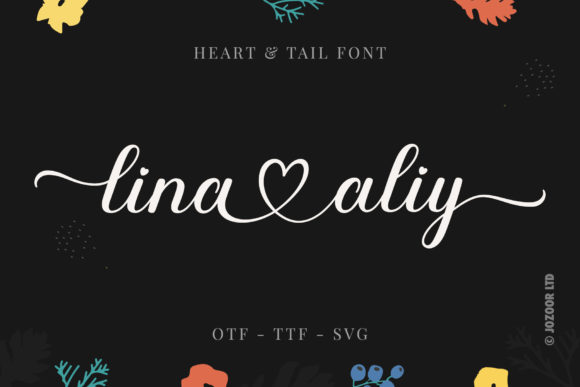
Introducing Lina Aliy Font, the ultimate choice for your modern logo! This captivating and enchanting script font, created by Jozoor, is the perfect blend of romance and sweetness. With its stylish characters gracefully dancing along the baseline, Lina Aliy will bring a luxurious spark to any design project you have in mind.
Why settle for ordinary when you can elevate your brand with the best font for modern logos? Lina Aliy Font is the key to capturing attention and leaving a lasting impression. Its stunning curves and artistic flourishes will instantly grab the viewer's eye, making your logo stand out from the crowd.
But Lina Aliy Font is not just about aesthetics – it offers much more than meets the eye. This font is PUA encoded, giving you effortless access to a treasure trove of incredible glyphs and ligatures. Let your creativity run wild as you effortlessly combine and customize characters to create unique and stunning designs.
Whether you're a professional designer or someone looking to add a touch of elegance to your personal projects, Lina Aliy Font is the perfect companion. Its versatility allows it to shine in various applications, from logos and branding to wedding invitations, social media posts, and everything in between.
But don't just take our word for it – let the emotions speak for themselves. Experience the joy and excitement that Lina Aliy Font brings to your designs. Feel the warmth and love it exudes, as if each stroke of the pen was made with heartfelt passion. This font is more than just a tool; it's a gateway to a world of creativity and inspiration.
So, why wait? Embrace the beauty of Lina Aliy Font today and unlock endless possibilities for your designs. Join the countless satisfied users who have witnessed the transformative power of this captivating script font. Elevate your brand, captivate your audience, and make a statement that will leave a lasting impression.